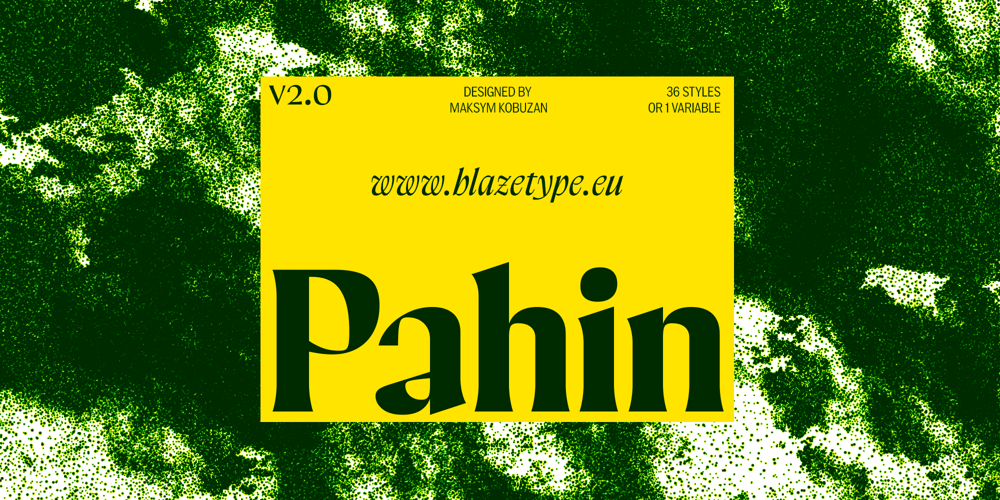
Pahin Font Family was designed by Maksym Kobuzan and published by Blaze Type. Pahin contains 36 styles and family package options. Pahin is an expressive flared serif that combines sharp forms with intricate contours. Its plasticity is inspired by the graceful curves of stems and flowers, creating vibrant and organic forms. Sharp elements contrast with soft and flowing lines, reminiscent of thorny thorns protecting delicate flowers or fruits. At the same time, Pahin inherits and is based on the tradition of calligraphy.Pahin is distinguished by an abundance of loops, especially in the alternative set, which resemble, for example, a grapevine. These elements give the typeface freshness, flexibility and naturalness, making it ideal for use in large sizes, where its expressiveness is fully revealed.Pahin is available in 12 styles, including 6 weights (from Extra Light to Black) and a true italics. A variable file is also available on 2 axes, allowing for smooth switching between italic and roman.The name of the typeface comes from the Ukrainian word «Пагін», which means “plant shoot”.Equipped with Extended Latin and Ukrainian Cyrillic support.